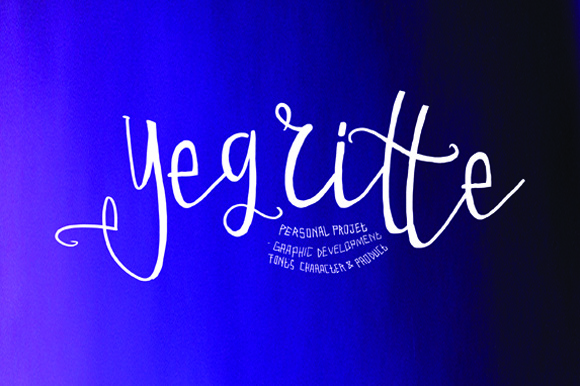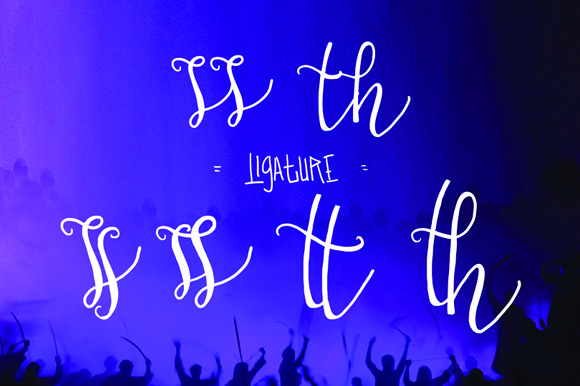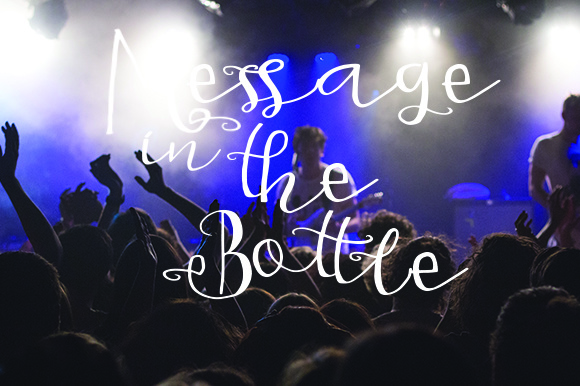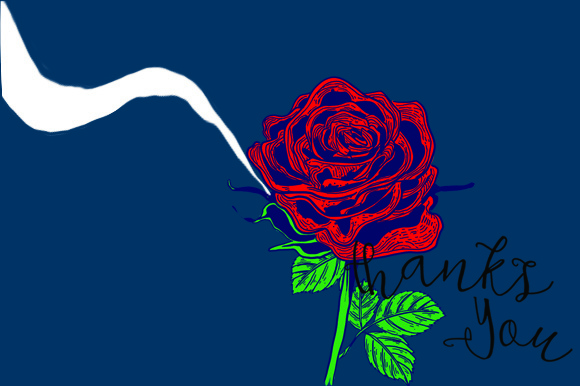
Yegrith Script Font
About Yegrith Script Font
Yegrith has a touch of manual writing that gives the impression of a little strength but will also give a elegant feel to your design. Yegrith is the perfect companion to create strong and wild feelings for your creative project. Just play with uppercase and lowercase letters to make perfect words!